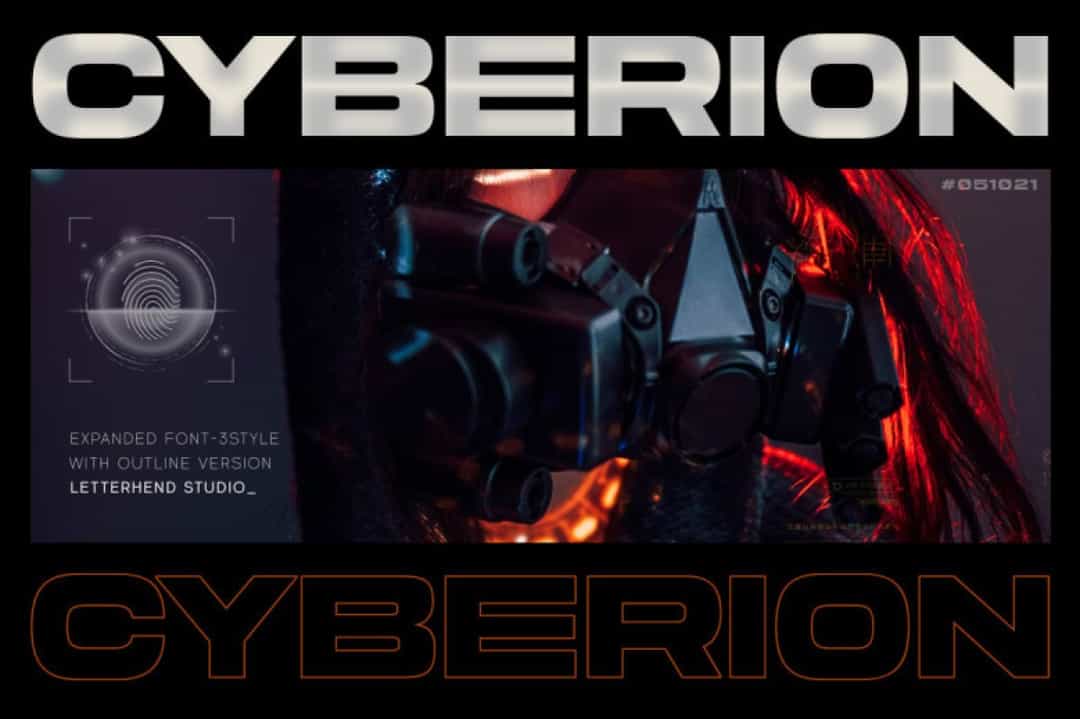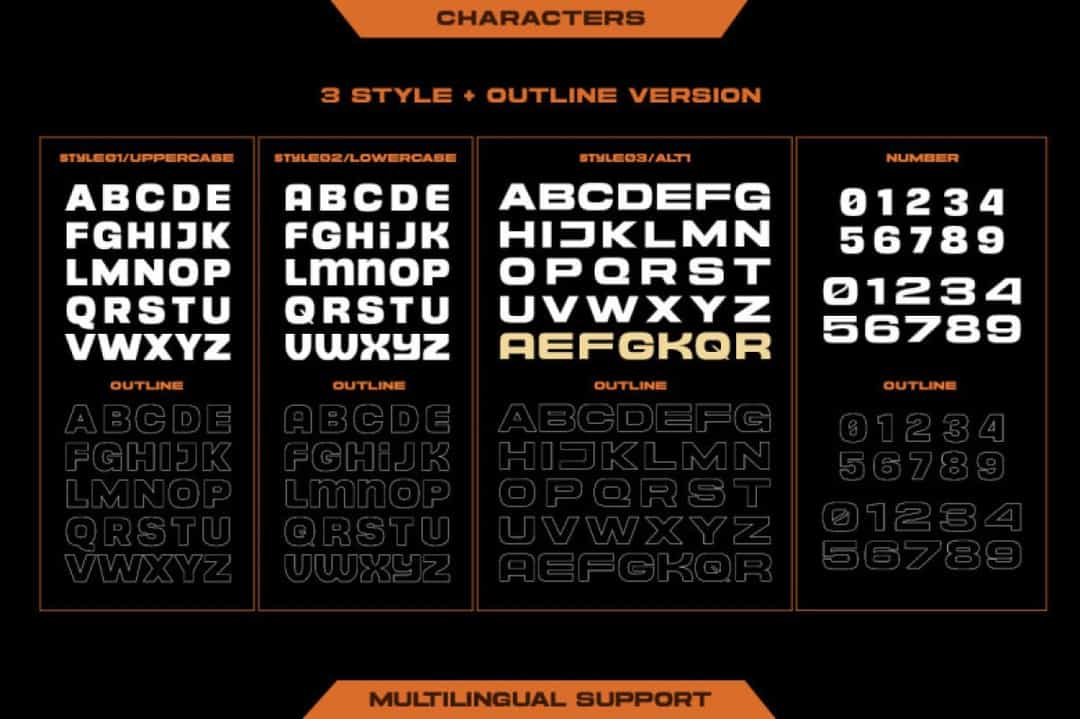
Cyberion is a contemporary show sans serif font family featuring two distinct styles. These styles include modern athletic, bold tech, etc. Cyberion stands out in title text headlines logos and more – making its design memorable!